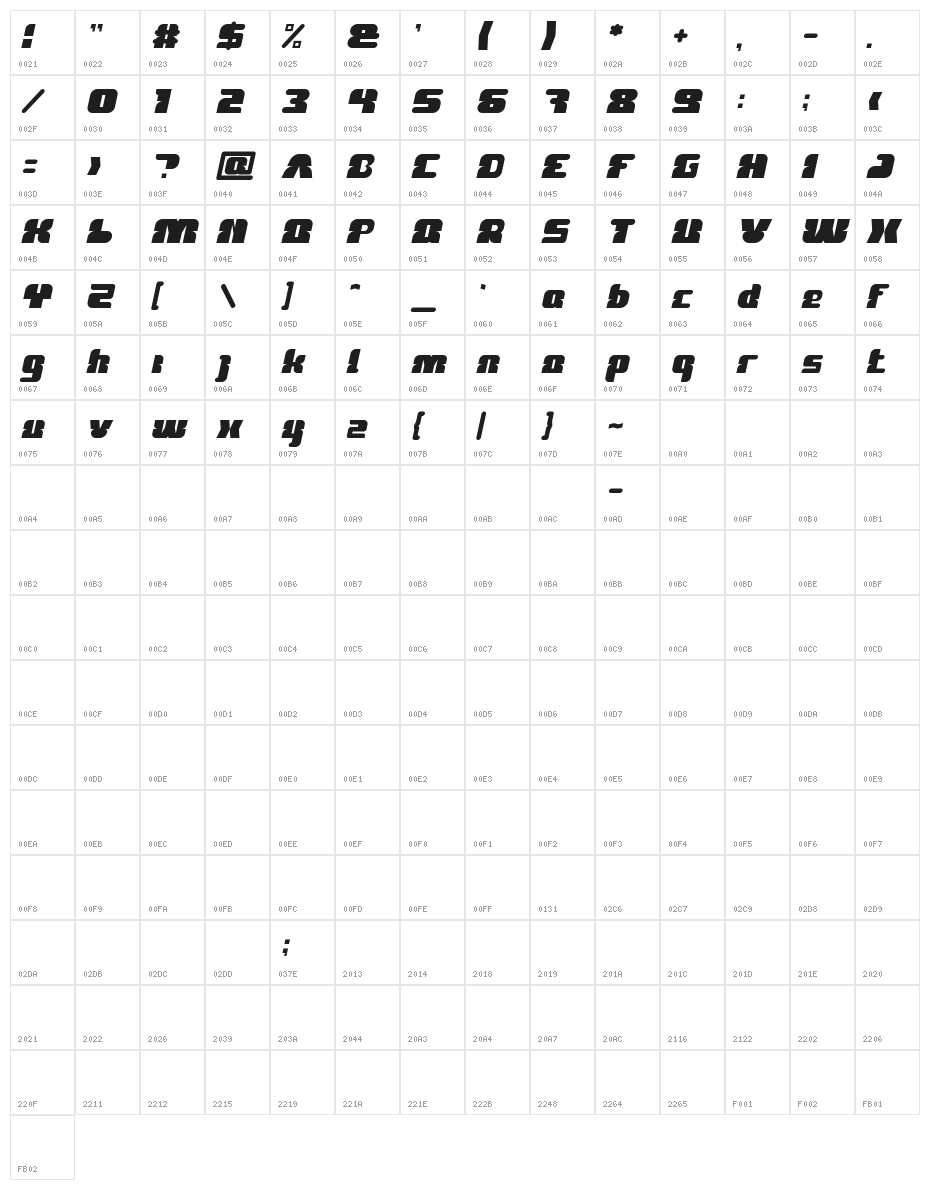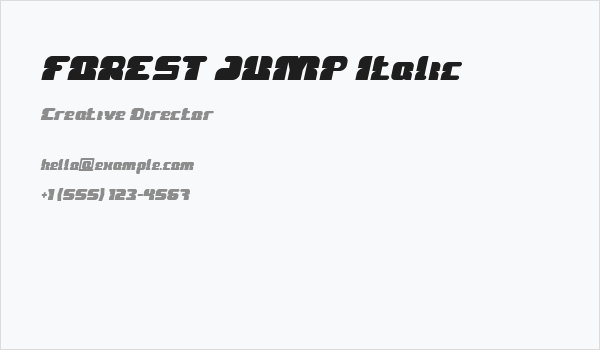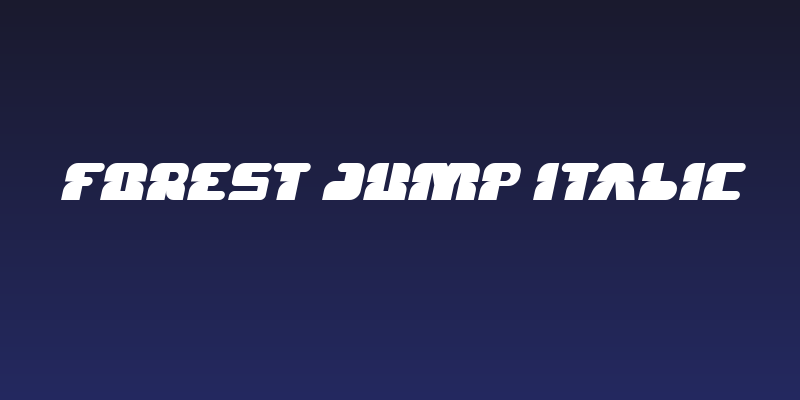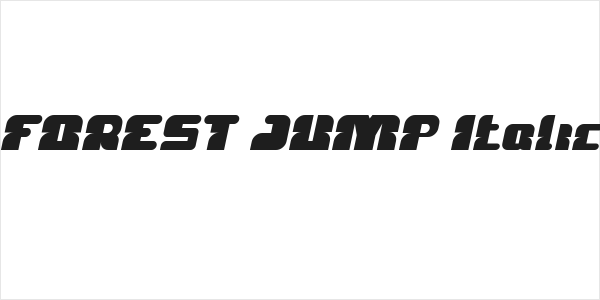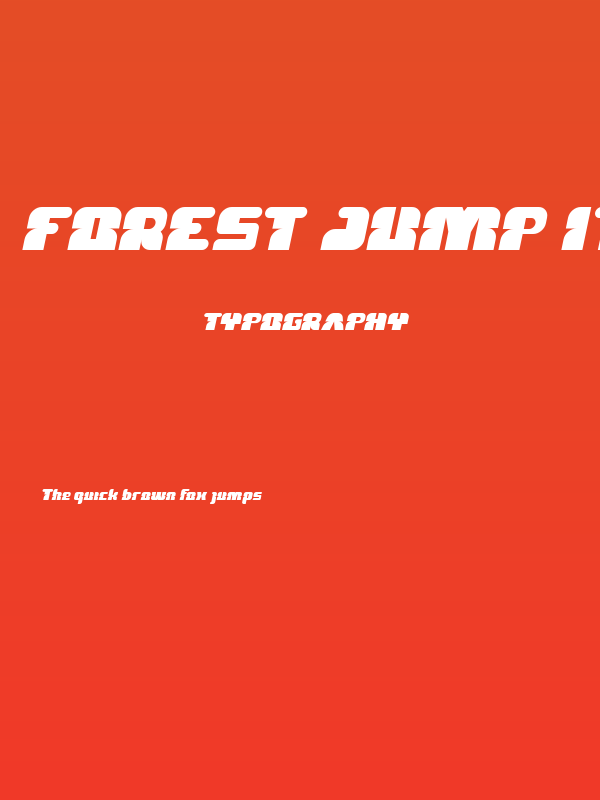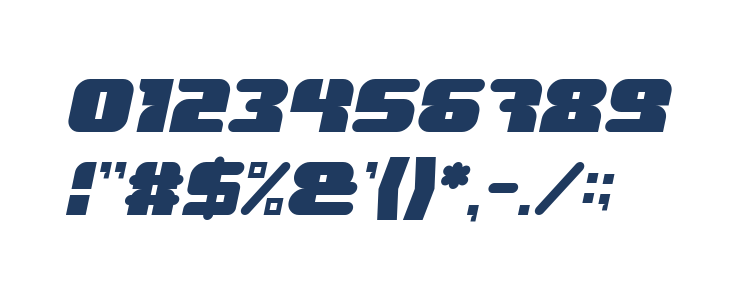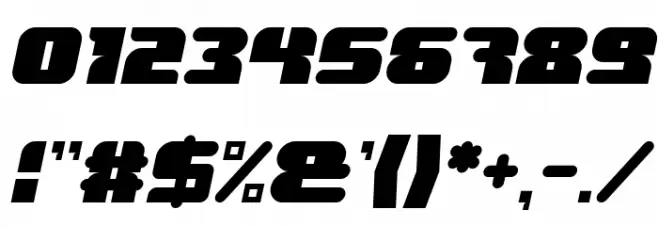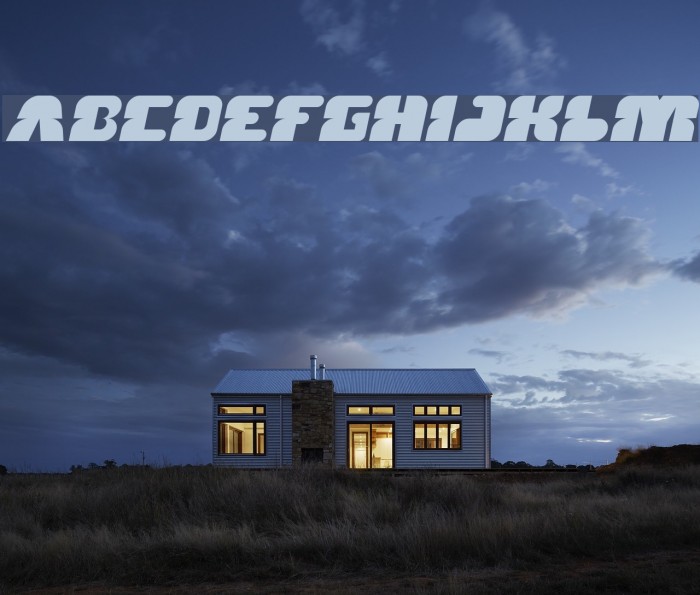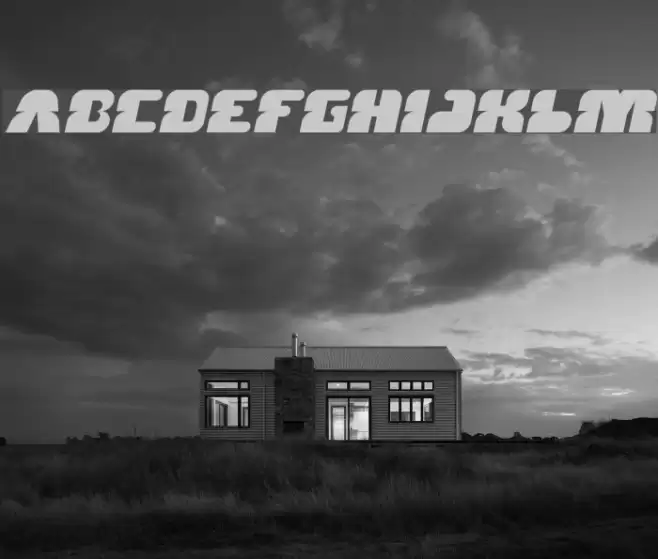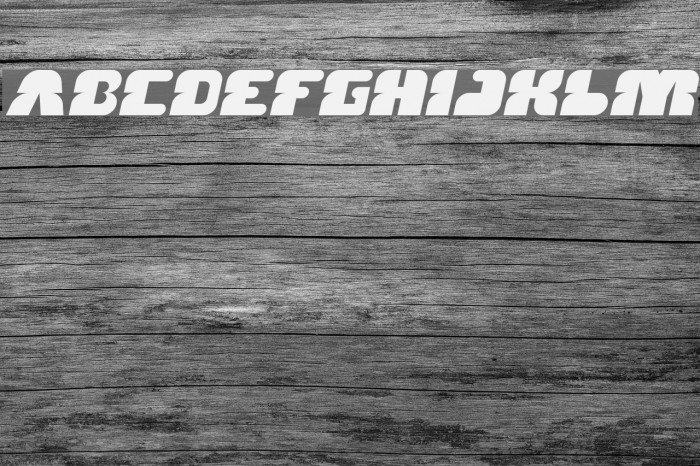
FOREST JUMP Italic Font
This font features a bold and dynamic style with a strong italic slant, giving it a sense of motion and energy. The characters are thick and robust, with a distinctive geometric design that incorporates sharp angles and smooth curves. The uppercase and lowercase letters maintain a consistent weight, creating a cohesive appearance. The numerals and special characters follow the same bold and angular aesthetic, ensuring uniformity across all glyphs. This font's unique style makes it stand out, making it suitable for attention-grabbing designs.
| Proposed Projects | Ideal for sports branding, dynamic posters, video game titles, and any project needing a bold, energetic typeface. |